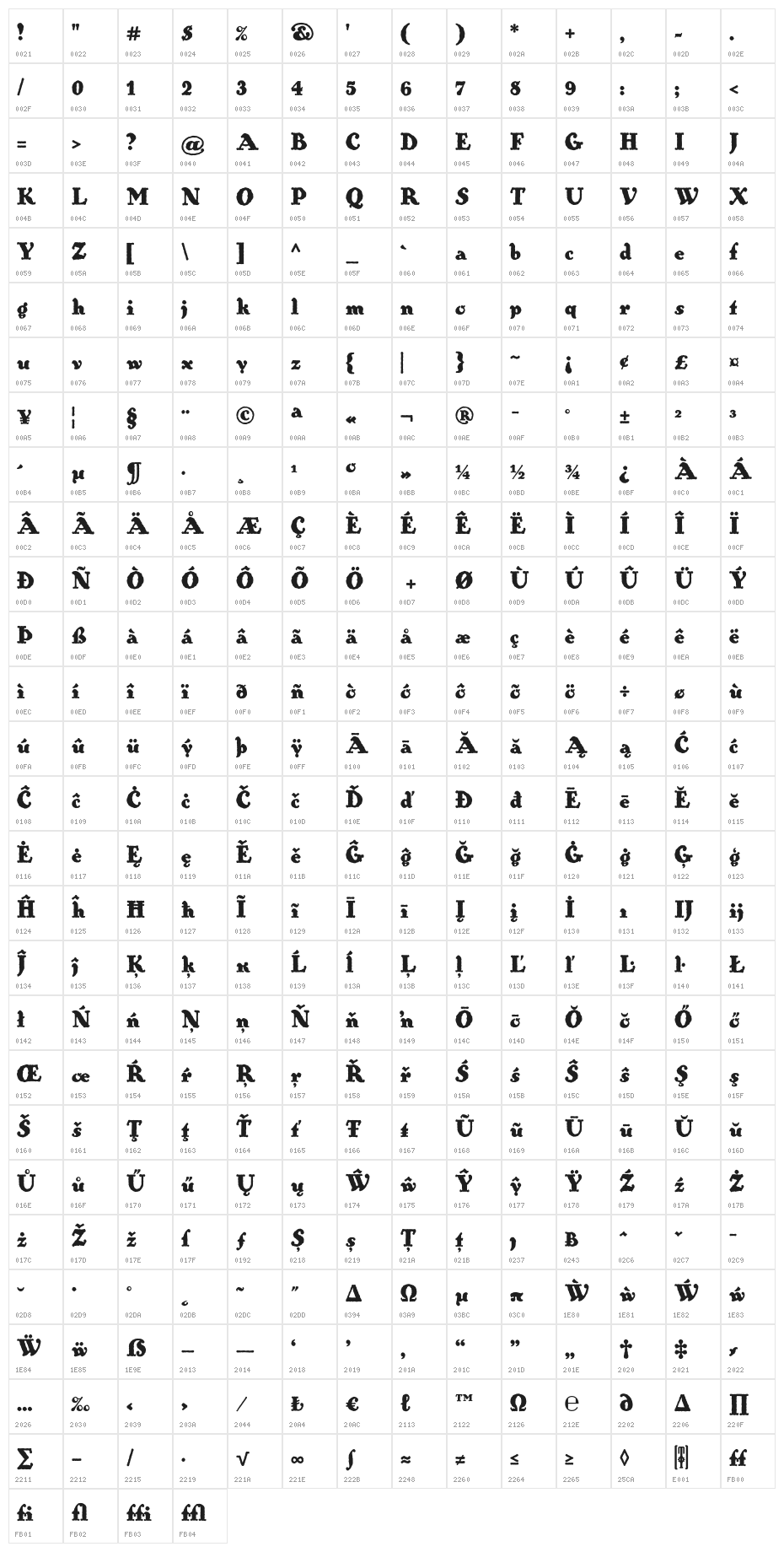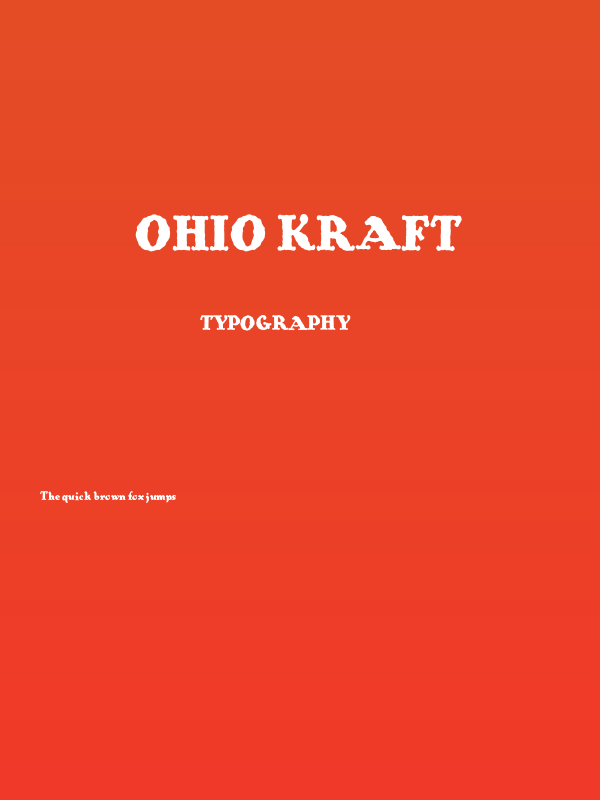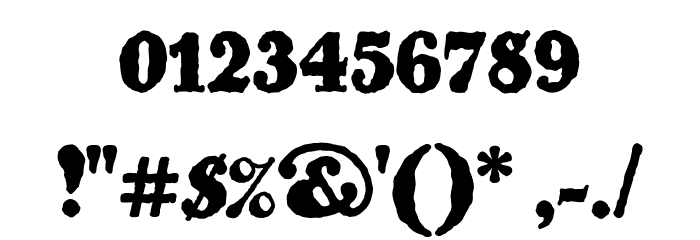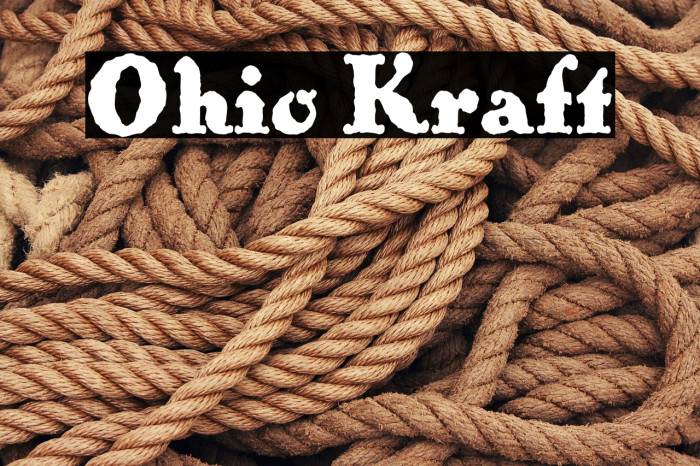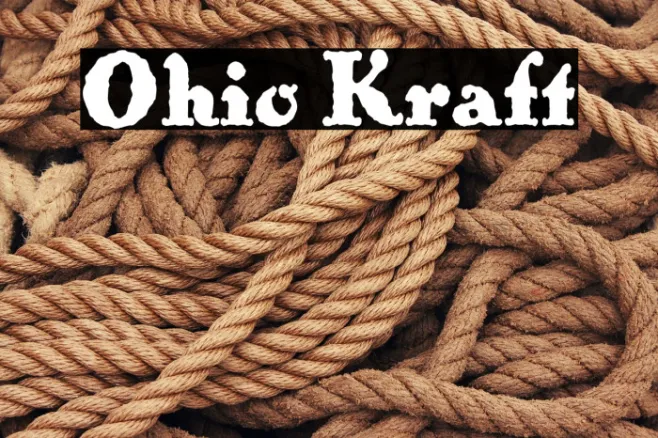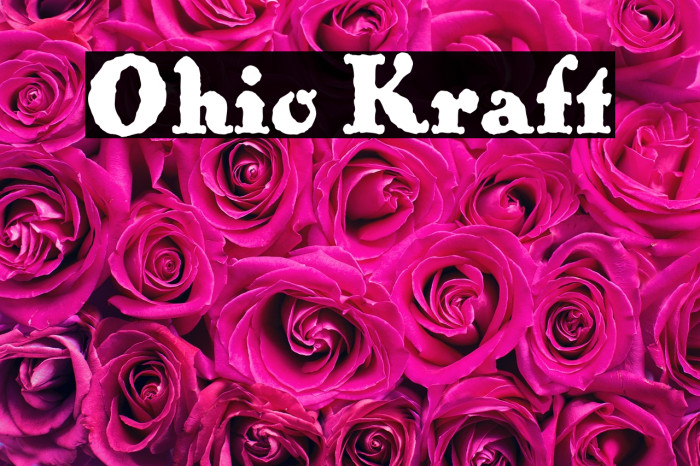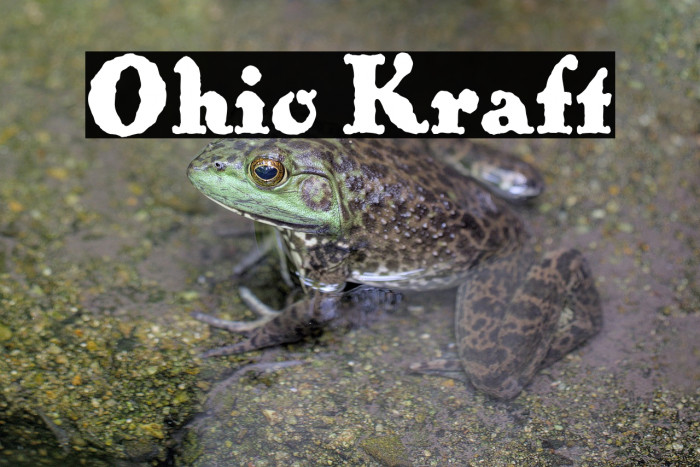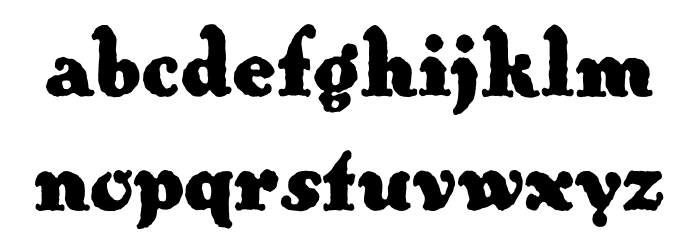
Ohio Kraft Font
Ohio Kraft Description
This font features a bold and textured appearance, reminiscent of vintage woodblock printing. The characters are robust and slightly irregular, giving them a handcrafted feel. The uppercase letters are strong and commanding, while the lowercase letters maintain a consistent style with rounded edges and a slightly distressed look. The numerals are equally bold, matching the overall aesthetic of the font. Special characters are included, maintaining the same textured style, which adds to the font's versatility. This font is ideal for projects that require a rustic or historical touch, offering a unique blend of readability and artistic flair.
| Proposed Projects | Ideal for vintage posters, branding, packaging, and signage that require a rustic or historical aesthetic. |